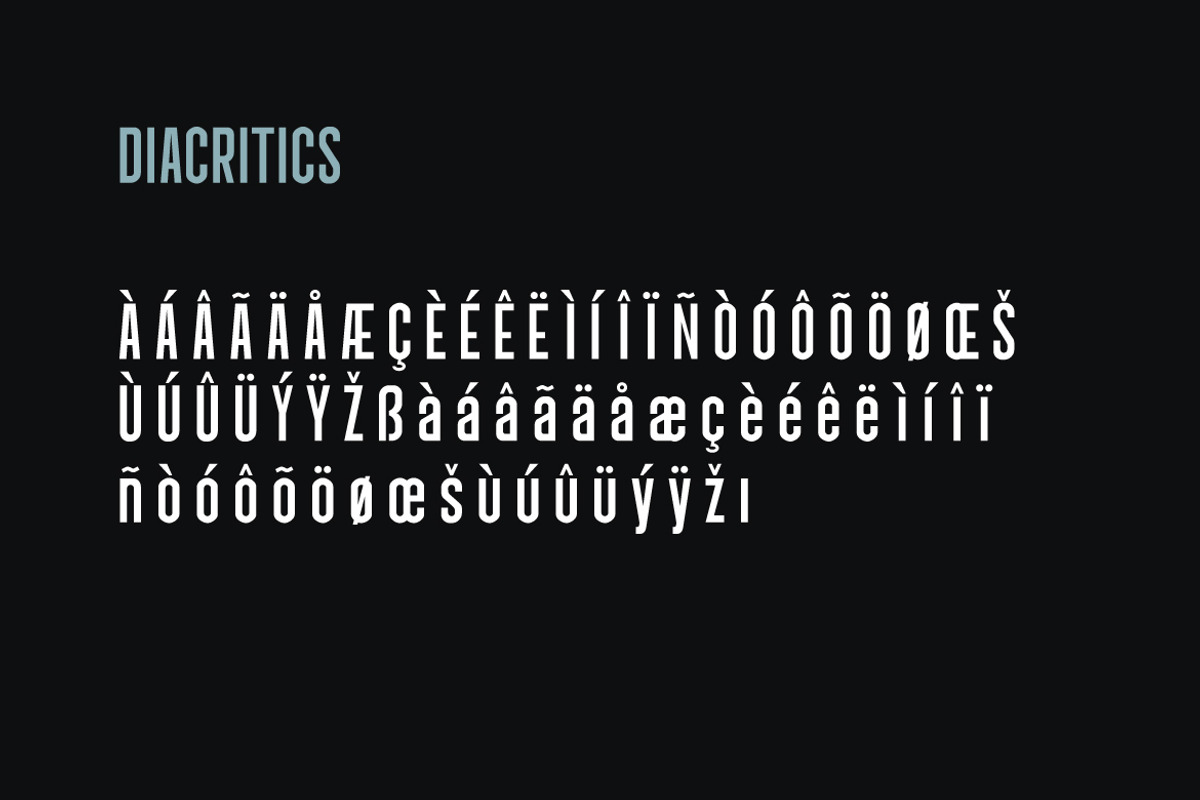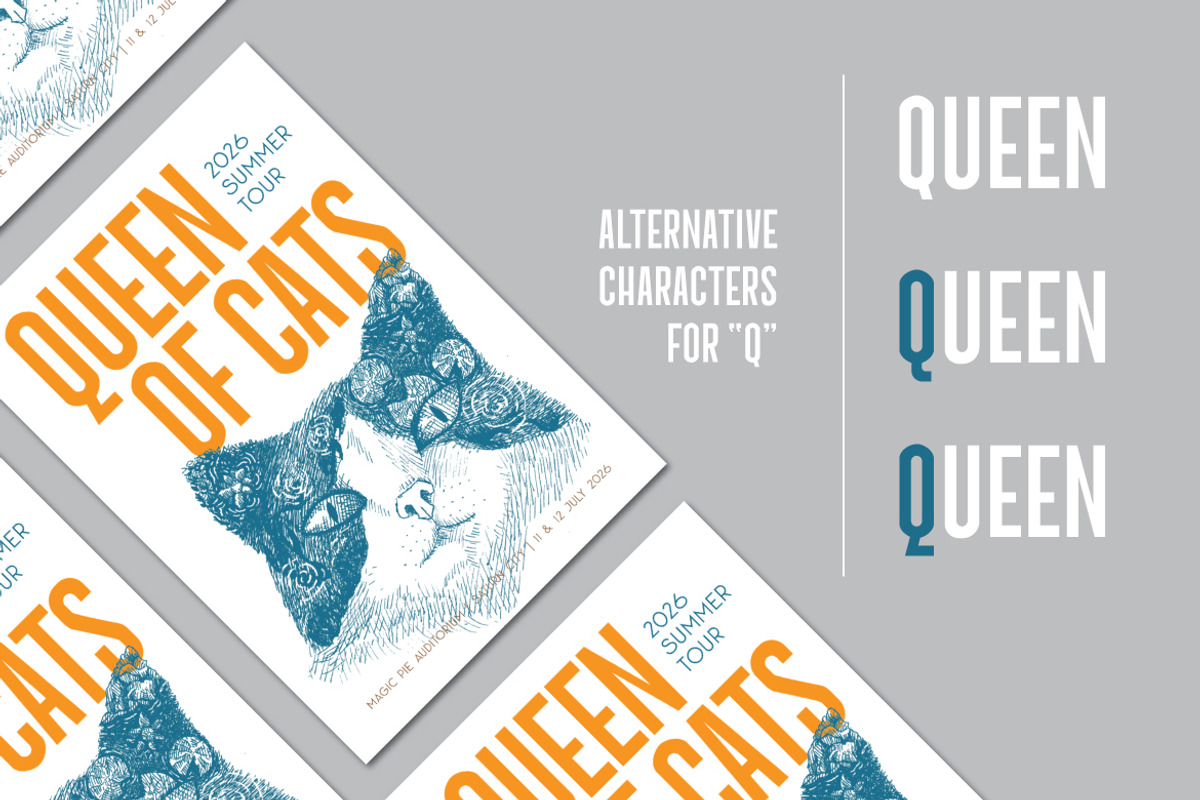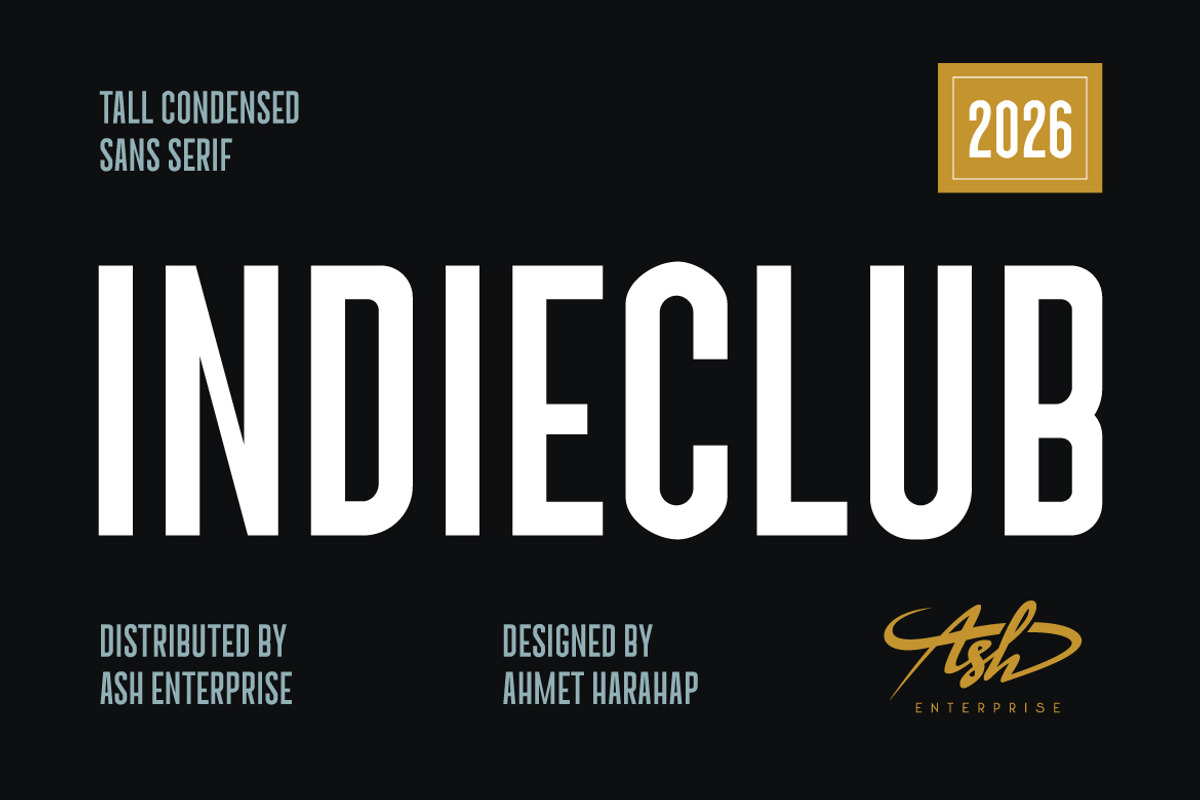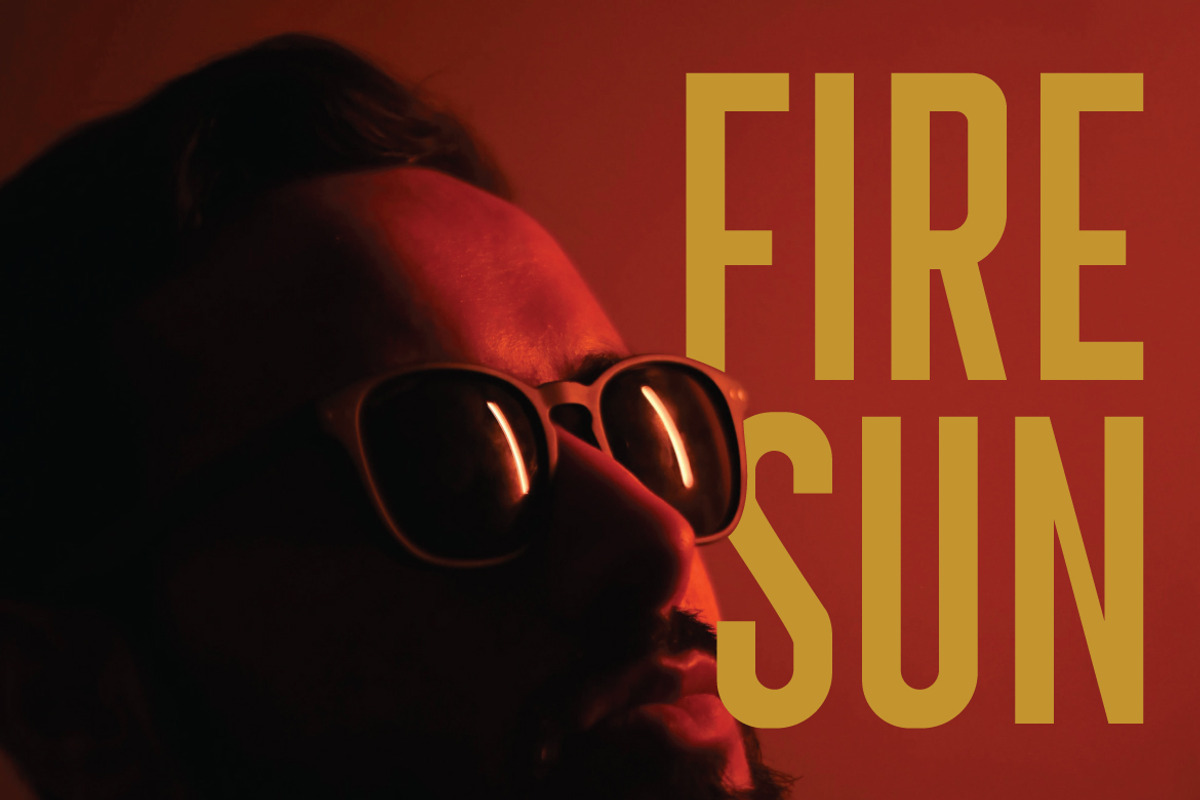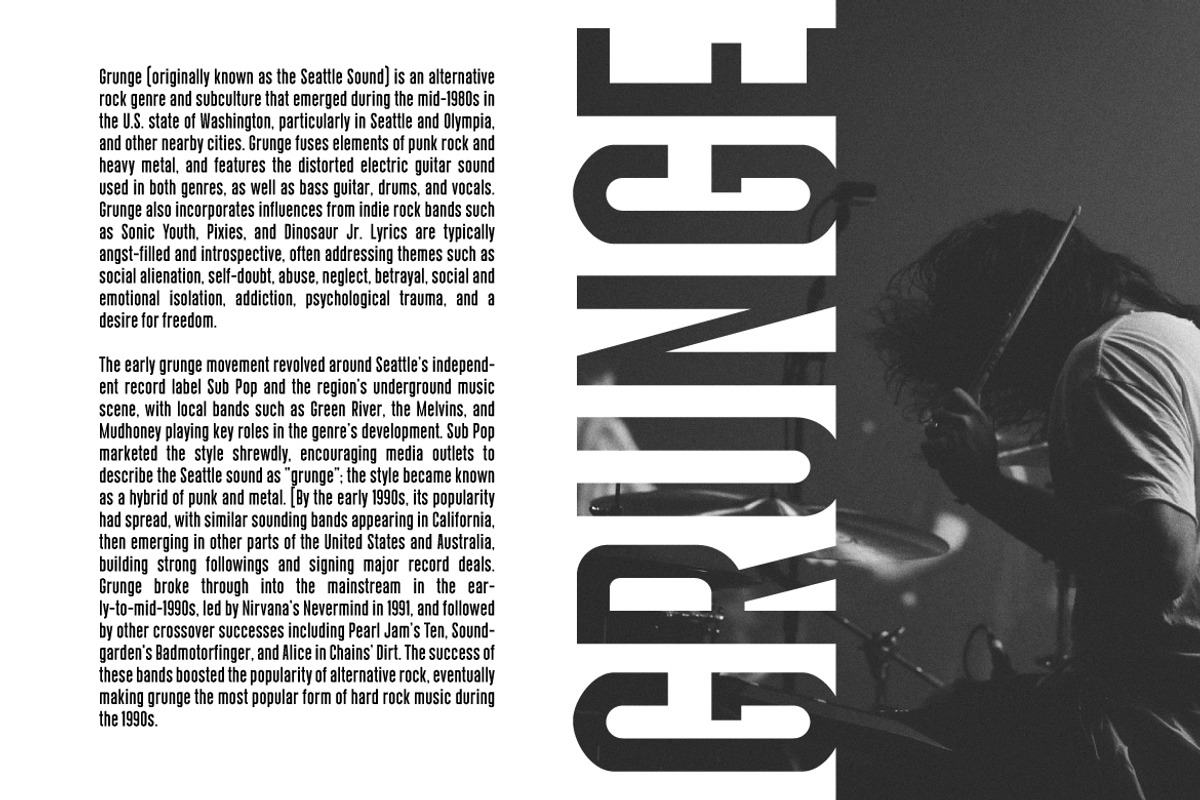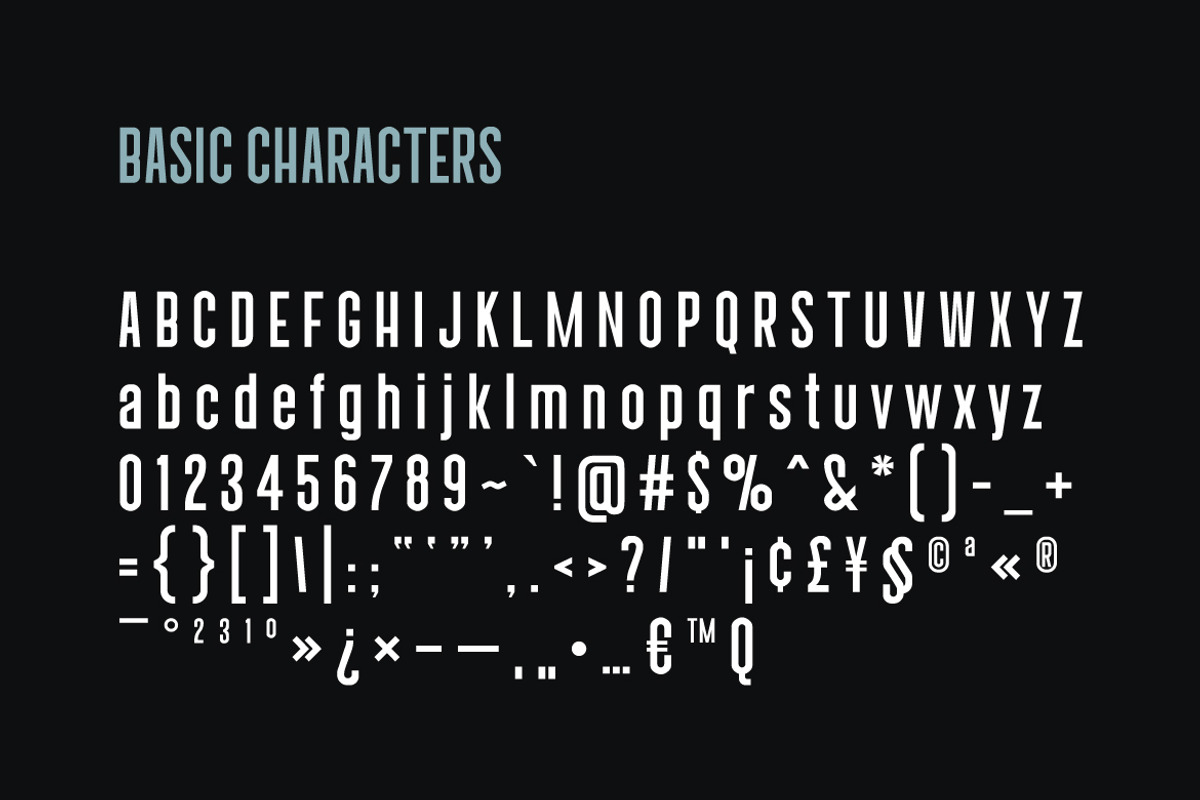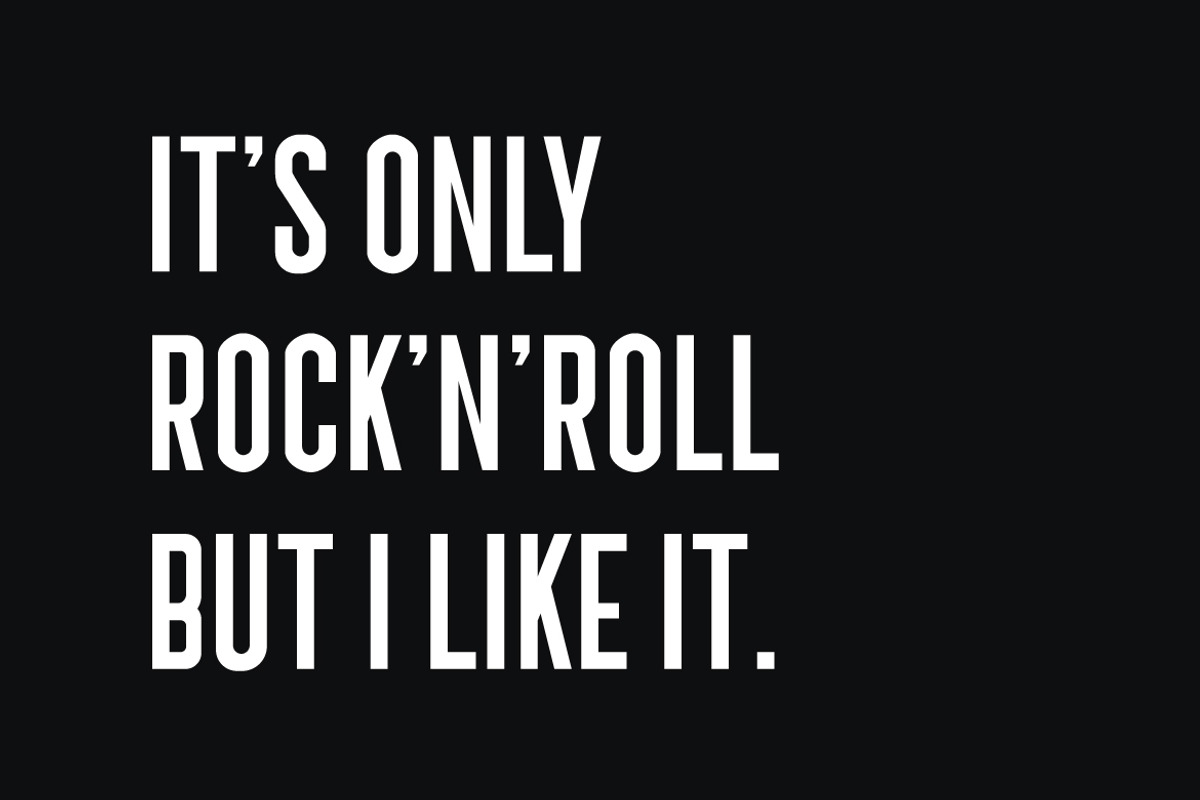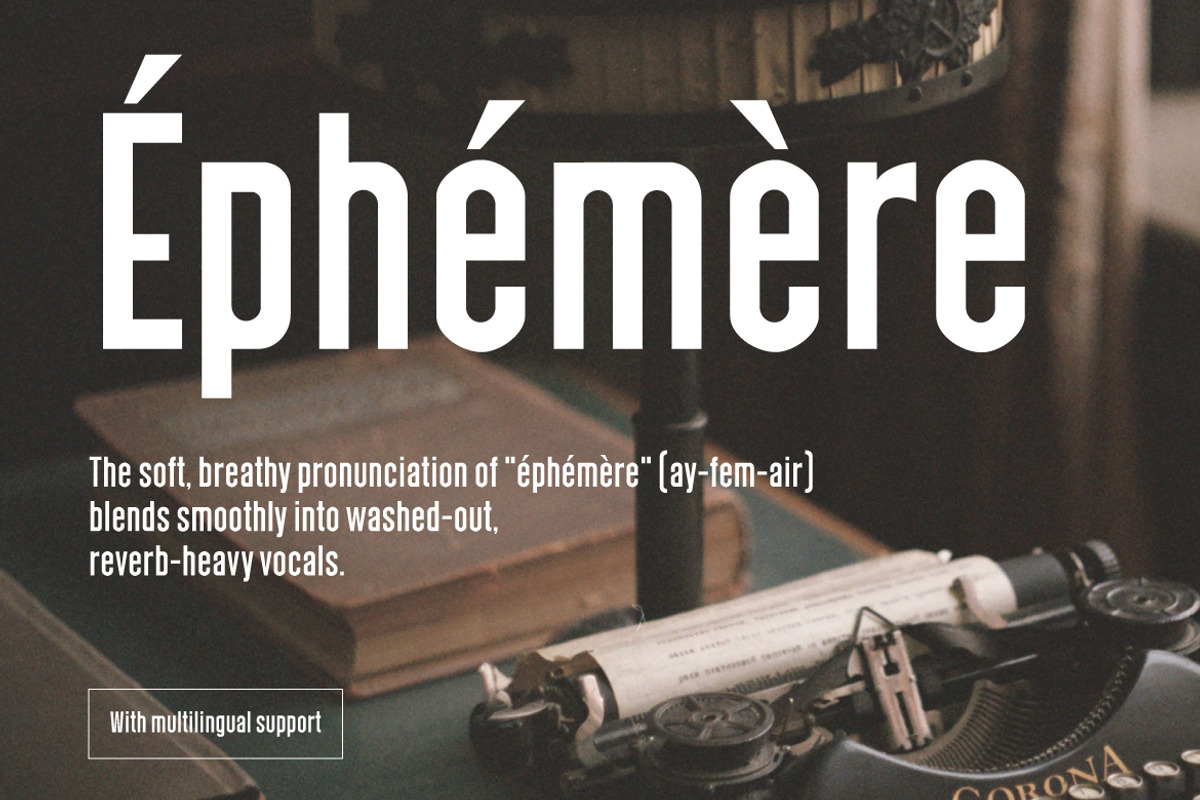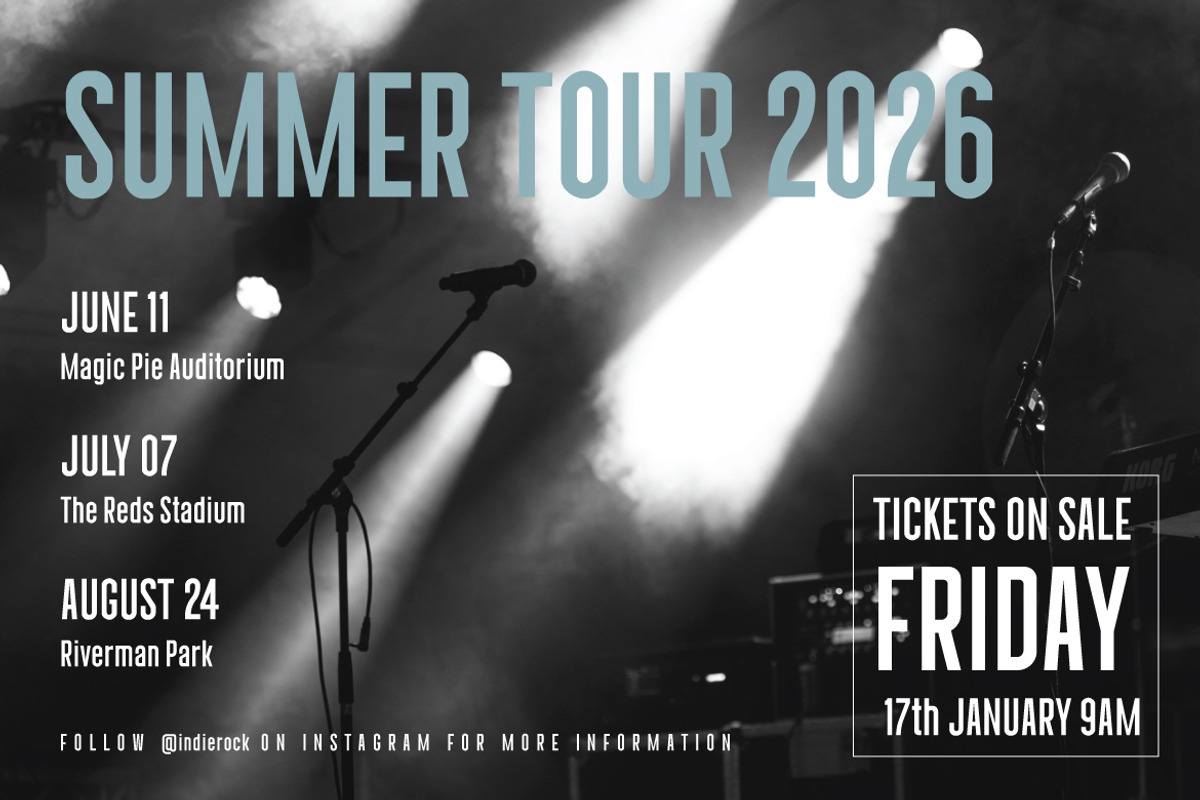
Indie Club - Tall Condensed Sans
Inspired by indie rock culture, which embraces independence and the confidence to stay true to oneself, Indie Club captures that spirit through bold, tall, and minimalist letterforms. It works beautifully as both a striking headline typeface and a clean, highly readable font for body text.
Indie Club is also a versatile choice for branding and visual identity projects, including logos, promotional materials, packaging design, labels, editorial layouts, signage systems, and many other creative applications.